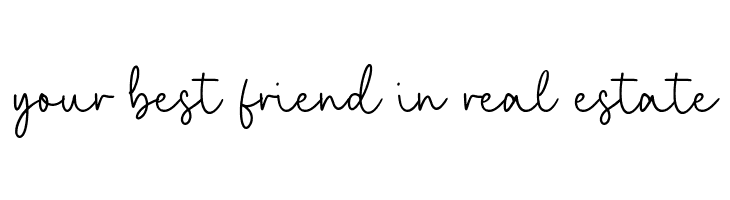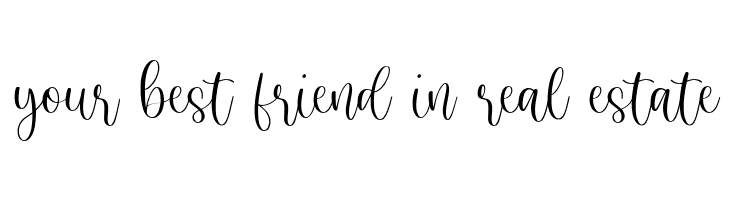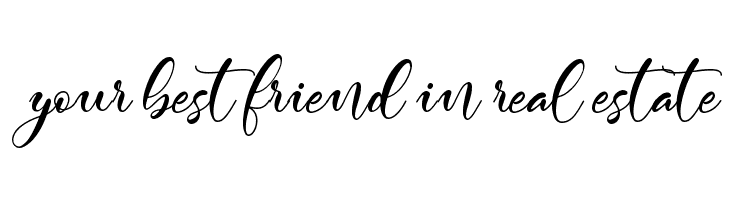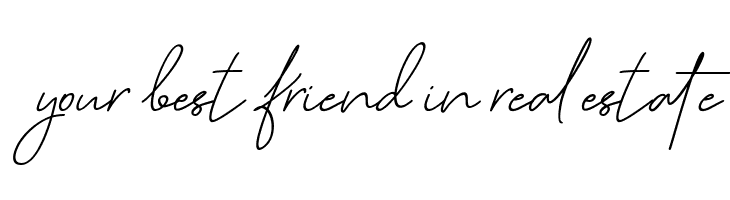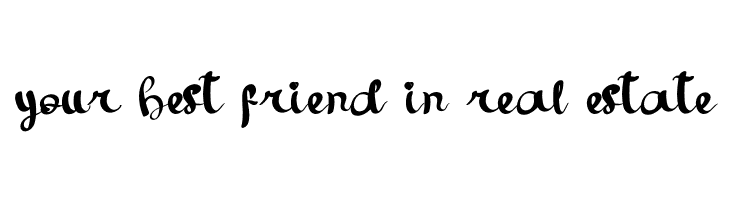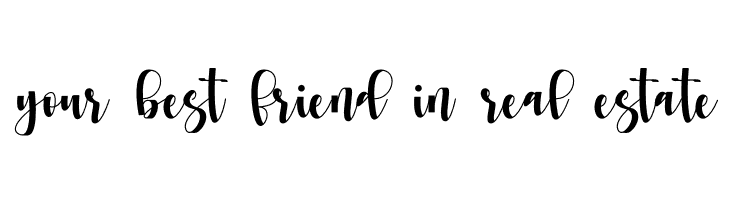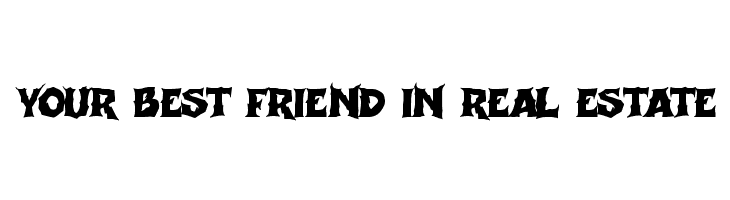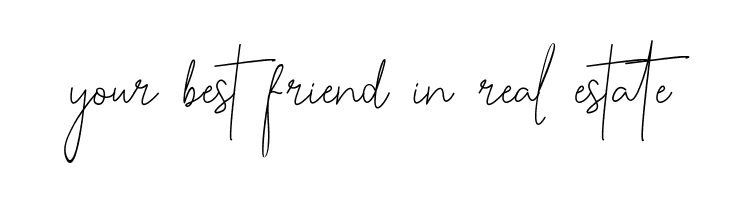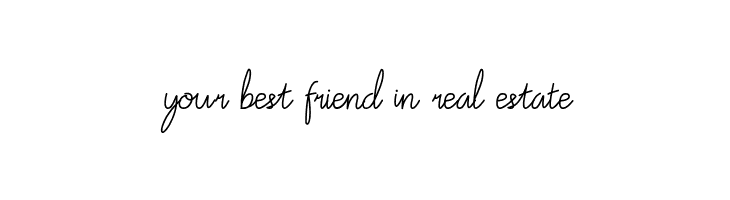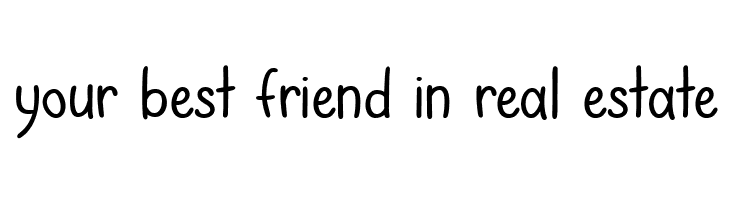
• Jonas Beckman Two
A lively, expressive handwritten font with flowing, interconnected letterforms.
• jopea302--D
A bold, hand-drawn font with a rough, textured appearance.
• Jose Andreas
A bold, angular font with a futuristic and geometric design.
• Joselyna
A playful, casual handwritten font with smooth, flowing lines and a whimsical touch.
• Juiced
An ornate and decorative font with intricate swirls and flourishes.
• Julie
• Julietta Signature
An elegant, cursive font with a flowing, signature-like style.
• Juliette Garden
A graceful and elegant script font with flowing, intricate lines.
• Julliscriptum
An elegant, flowing script font with a handwritten style.
• Julliscriptum Reloaded
A fluid and elegant handwritten script font with a personal touch.
• July
A decorative and elegant script font with flowing, cursive characters.
• July it
A fluid, cursive script font with elegant, slanted characters.
• July Rainstorm
A playful, handwritten font with smooth, rounded strokes.
• July Seventh
A bold, flowing script font with elegant curves and a dynamic appearance.
• Julya
A dynamic and elegant script font with high contrast and flowing letterforms.
• JulyFireworks